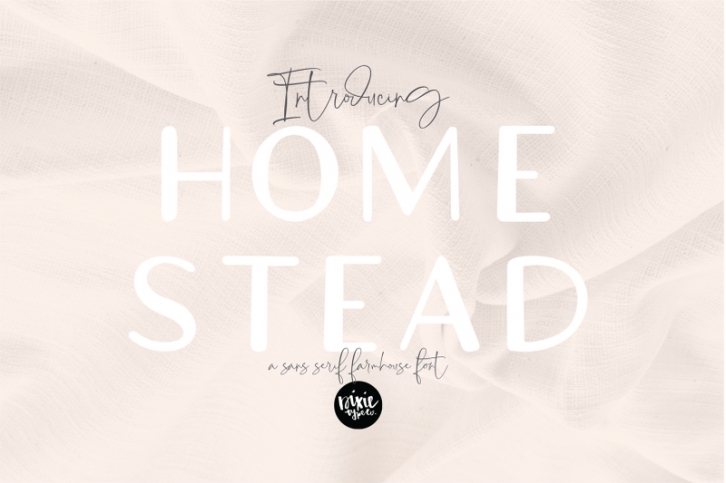
HOMESTEAD a Sans Serif Farmhouse Font Download
"Homestead" Hand-lettered farmhouse font. Perfect for signs!
{ A typographic font hand-lettered with love by Dixie Type Co. }
Homestead is a sans serif lettered font that will compliment any script font. This works great in projects that use lots of text. It was made with rustic farmhouse signs in mind. Check out our other farmhouse style fonts that pair perfectly with this one!